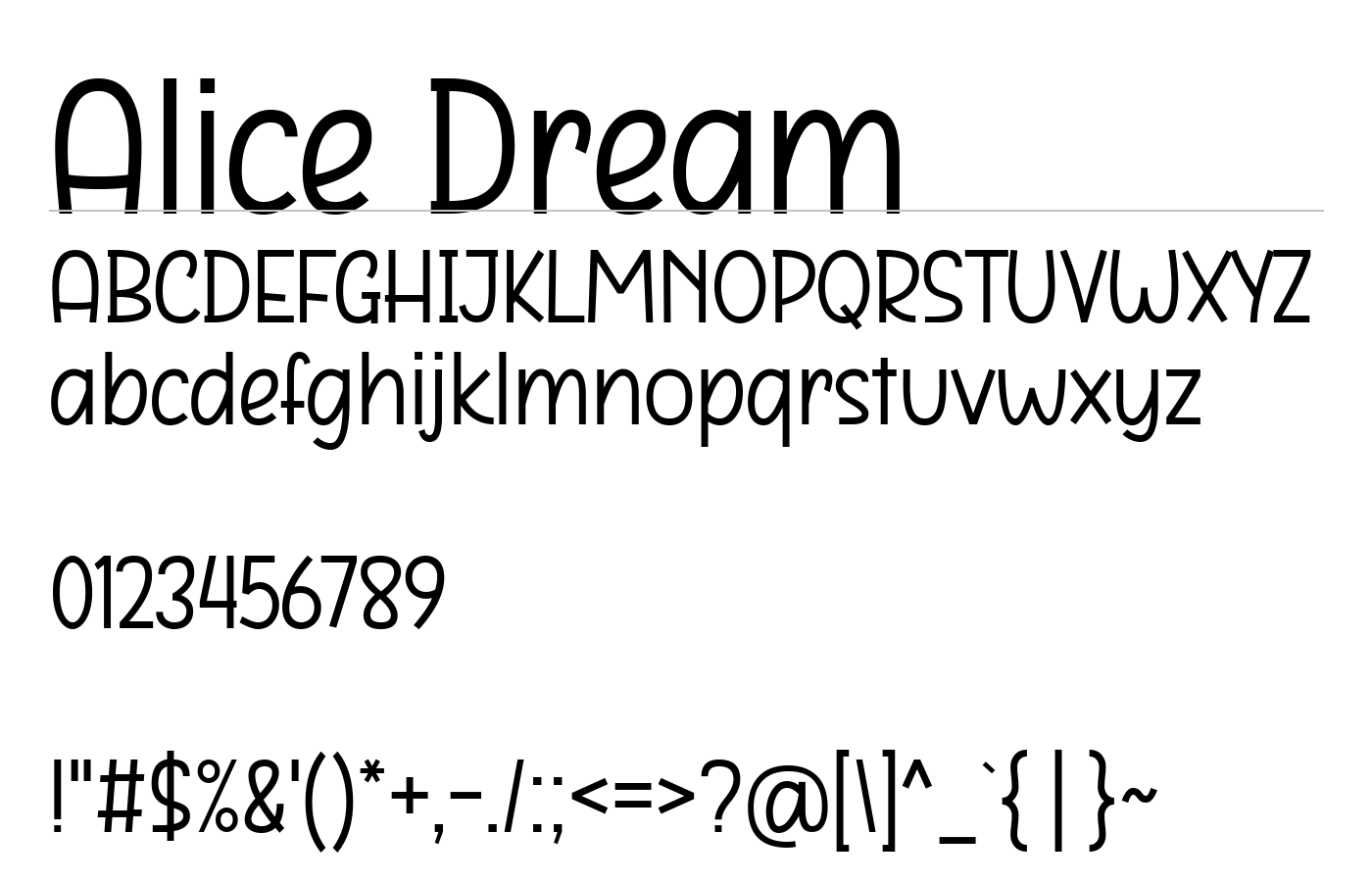
Alice Dream is a playful and modern sans serif font featuring tall, slender letterforms with a whimsical touch. It has a light weight and consistent stroke width that gives it an airy, friendly feel, making it perfect for creative projects, headlines, and casual branding that seeks a unique, approachable vibe. Its clean structure combined with subtle quirky curves makes it versatile for both digital and print use where personality and readability matter.
Alice Dream Font
About Alice Dream Font
| Designer | Kristoper Sianturi; Situjuh Nazara |